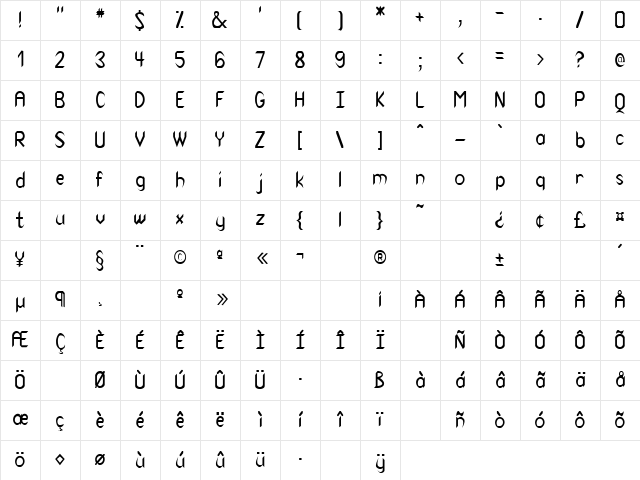
Nonfiction 2 Regular
Design Context for Nonfiction 2
Nonfiction 2 is a composed and adaptable typeface that performs quietly and consistently across a wide range of design contexts.